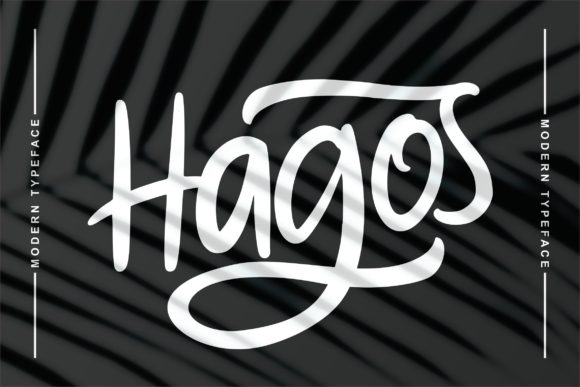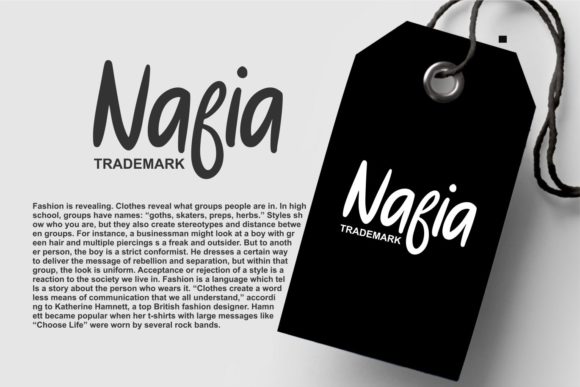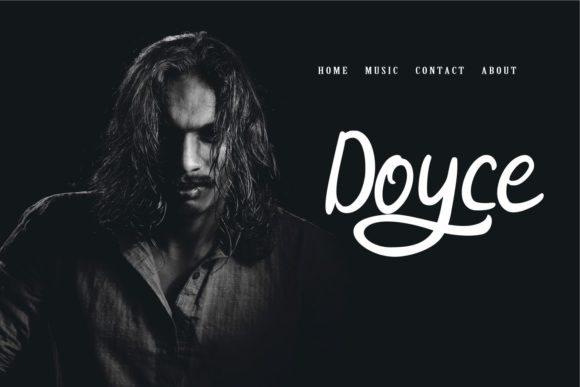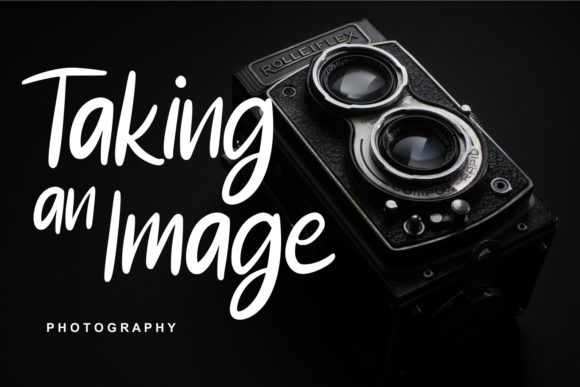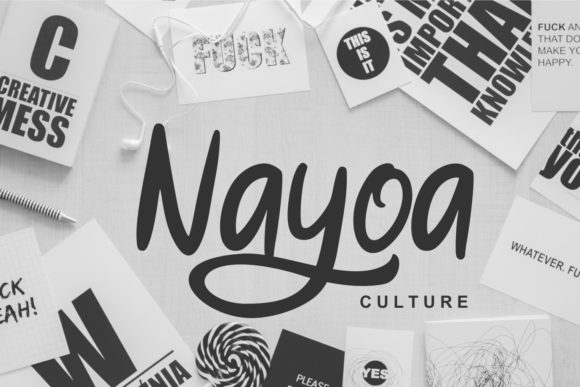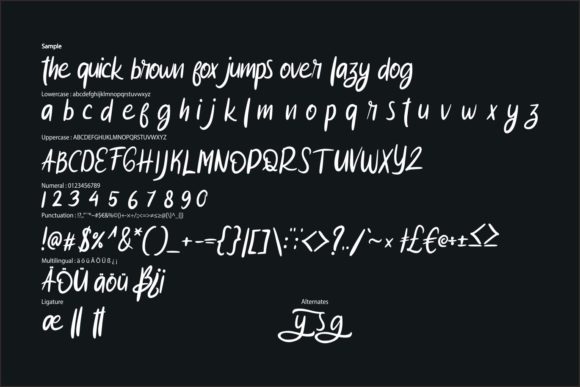
Hagos Font
About Hagos Font
Hagos is a modern typeface script with a calligraphy style. It will look beautiful on invitation cards, branding materials, business cards and much more!